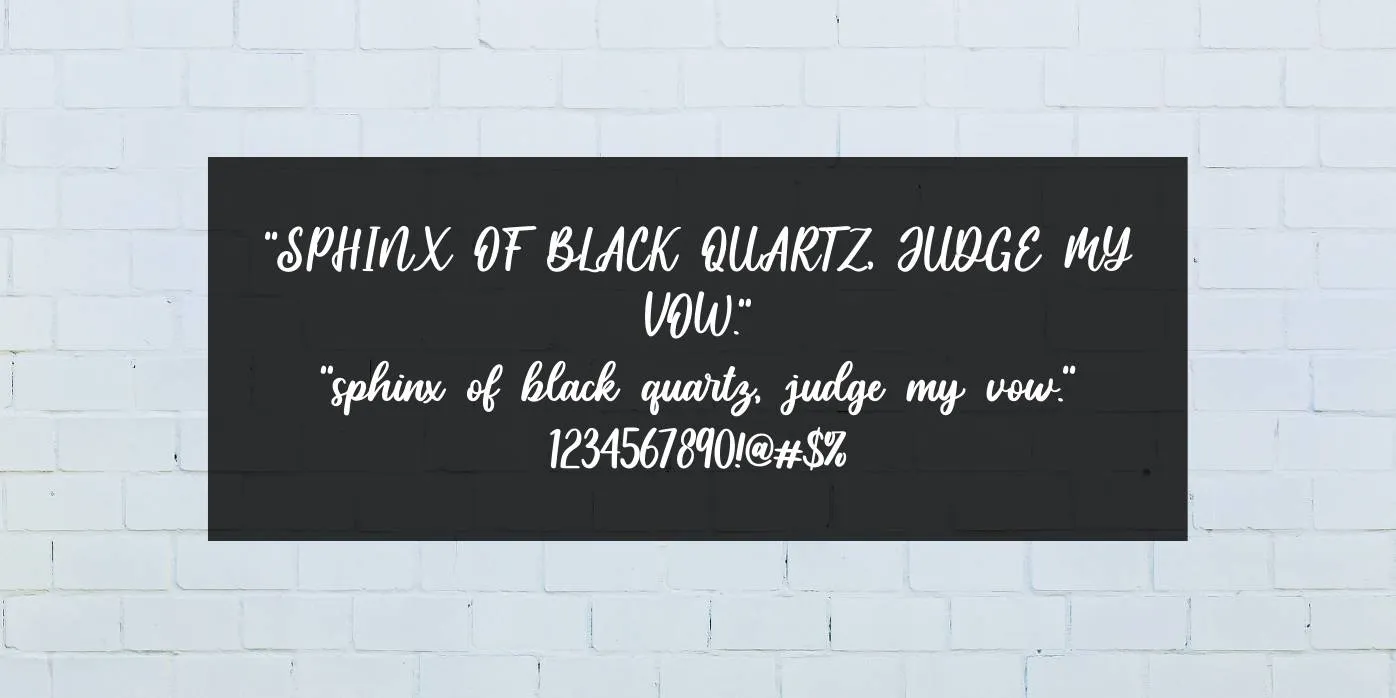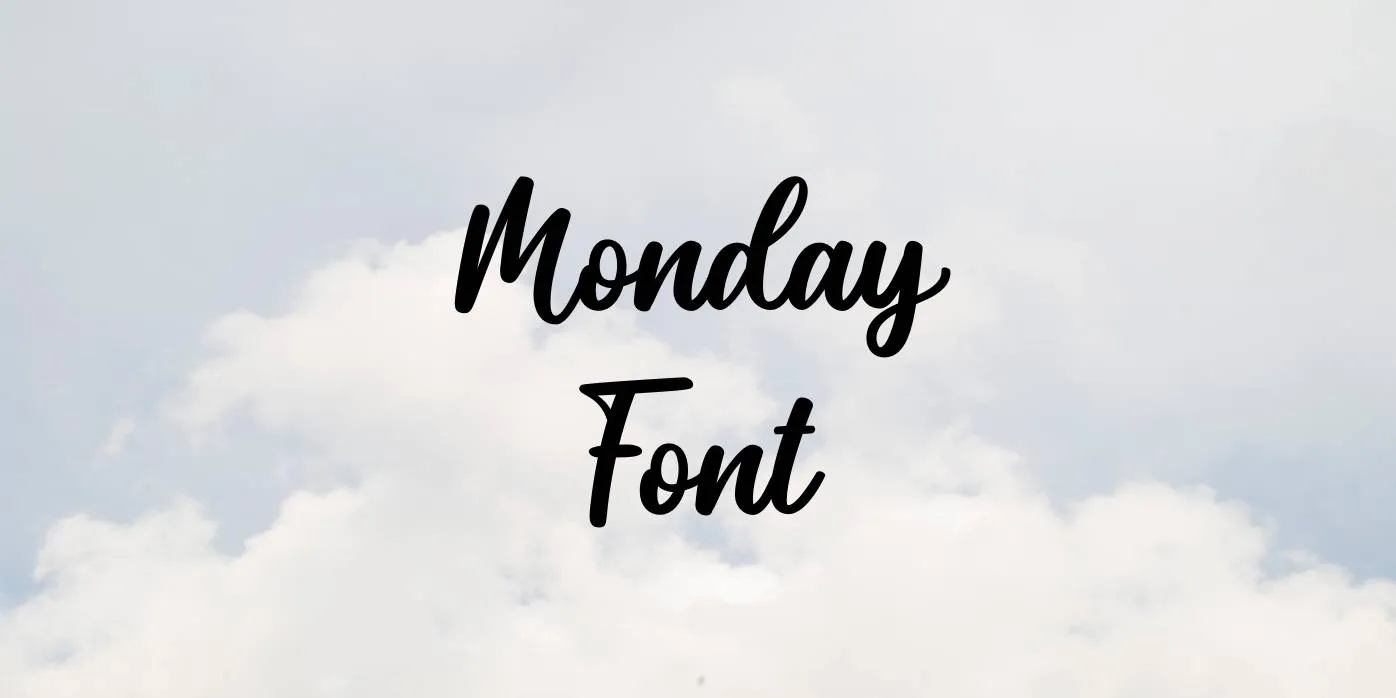
Monday Font
Monday Font is a script typeface that was developed by Nailetter. It was inspired by the lettering of days. The typeface includes two sets of characters: one set for the upper-case letters and another set for the lower-case letters. The uppercase letters are designed to be used as initials, while the lowercase letters can be used for words and phrases.
Monday Font was created with two goals in mind: to provide a typeface that is both easy to read and stylish, and to offer a wide range of options for users who want to customize their text. Its copy and paste function is suitable for all text designs. You can use dynalight font which has the same style and characters as this one. The typeface includes a variety of features that make it easy to change the appearance of your text, including A choice of four different styles (Regular, Bold, Italic, and Bold Italic), A wide range of OpenType features, including fractions, ligatures, and small caps.